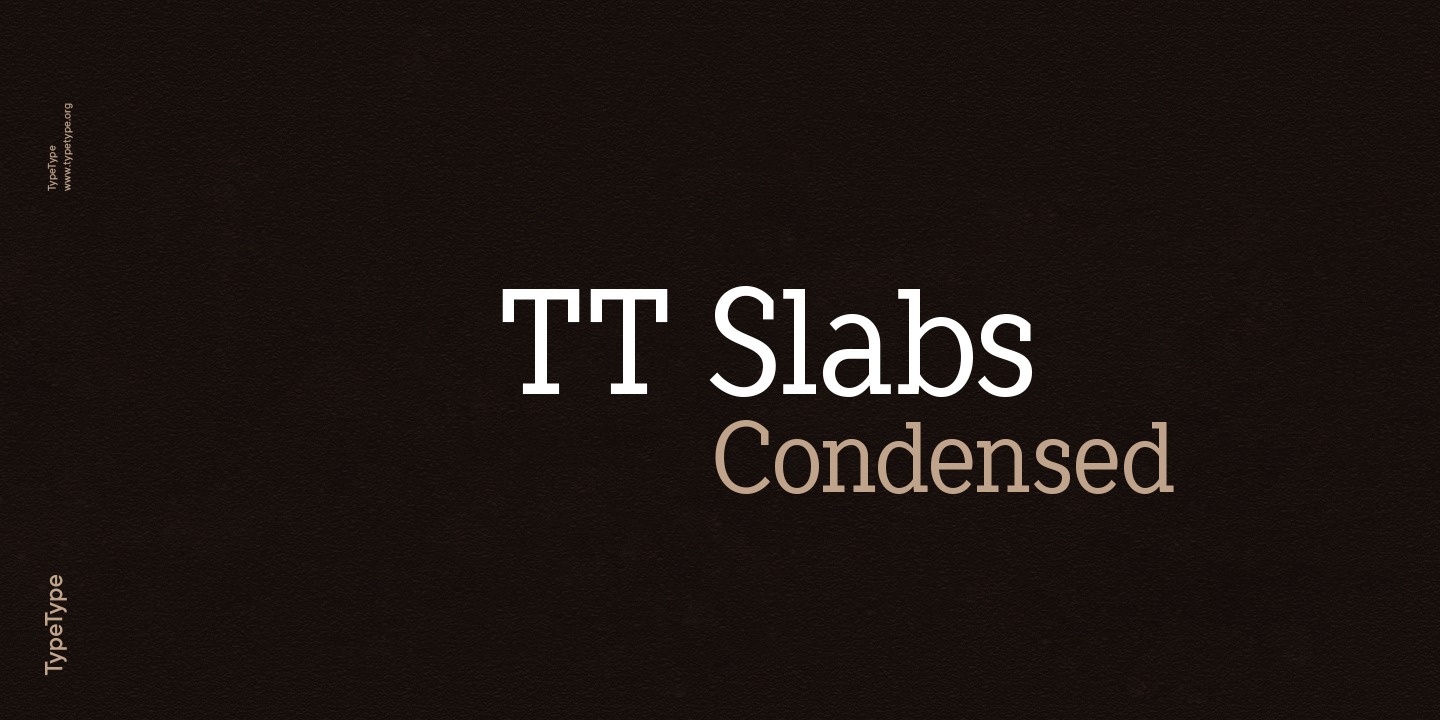
TT Slabs Condensed Font Family
TT Slabs Condensed Font Family is a versatile font designed to adapt beautifully across different design styles, offering dependable readability and balance. TT Slabs Condensed update 1.110 What’s new. • Case Sensitive Forms • Tabular Figures • Fractions • Numerators • Denominators • Superiors • Scientific Inferiors TT Slabs Condensed it is a condensed version of our TT Slabs font family. This new version is designed for strong headlines and design presentations. Very well suited for designers who create Identity and logos, as well as for interior design and navigation. The special features of the typefaces include the classic formula: Thin, Light, Regular, Bold & Black. Scope: food packaging, packaging of household appliances, newspapers, magazines, headers, signs, theatrical scenery, logos, interior design, decoration of shops. Optimized for the websites, mobile applications, and printing materials.
Designer: Ivan Gladkikh, TypeType Team